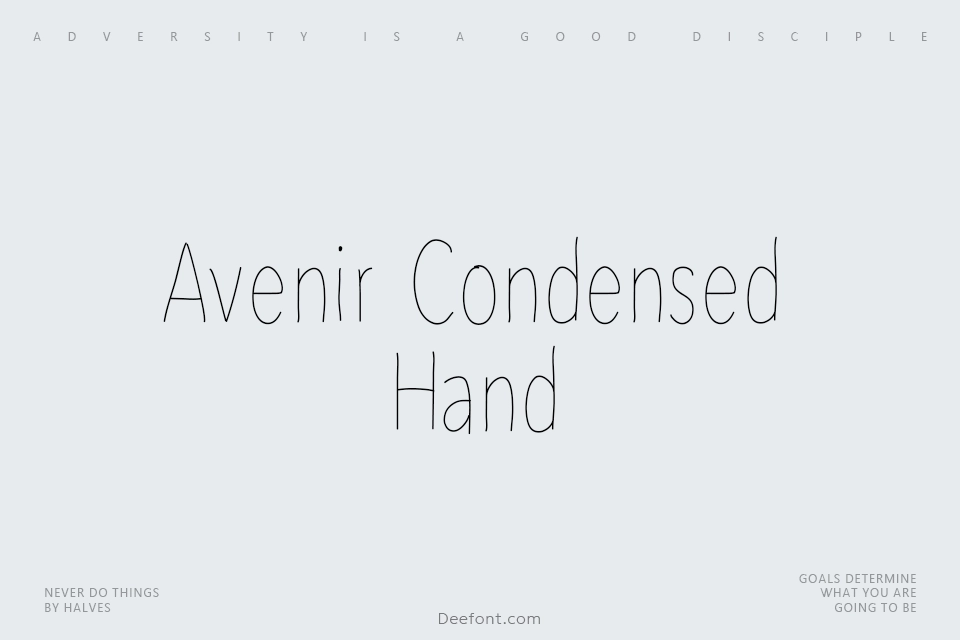
Avenir Condensed Hand Font
Avenir Condensed Hand is a charming handwritten script typeface designed by Jon Grafton, combining condensed letterforms with natural pen strokes. This versatile font delivers elegant handwriting aesthetics suitable for creative projects, invitations, and artistic typography. With its balanced proportions and flowing curves, it brings personality and warmth to both digital and print designs, making it an excellent choice for projects requiring a personal, human touch.